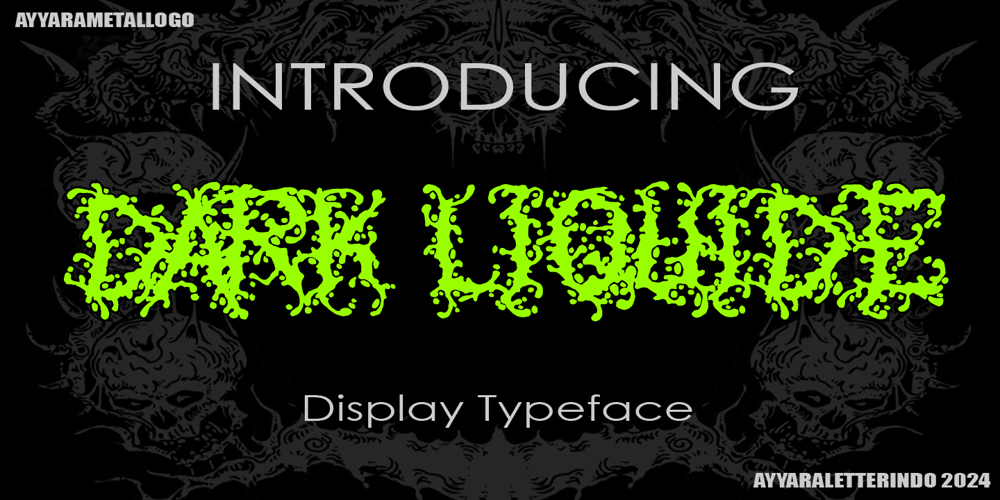
Dark Liquide
Dark Liquide font
Dark Liquide Font Family was designed by published by Ayyara Letterindo. Dark Liquide contains 1 styles and family package options. Dark Liquide is a display typeface font that can be used for logos, personal branding, posters, flyers, clothing design or any media promotions. You can immediately make your amazing project with the help of this unique display typeface font. Combine it with any unique or liquid ornaments and make your amazing design with fast and reduce your time work!